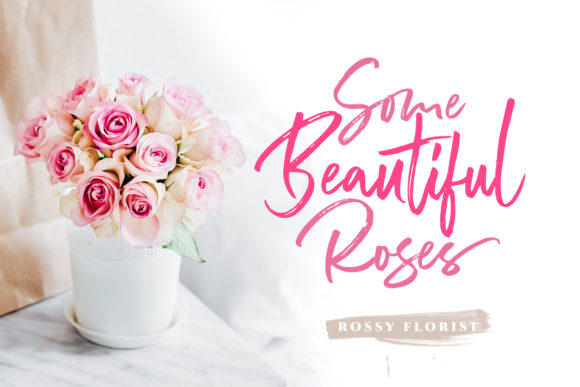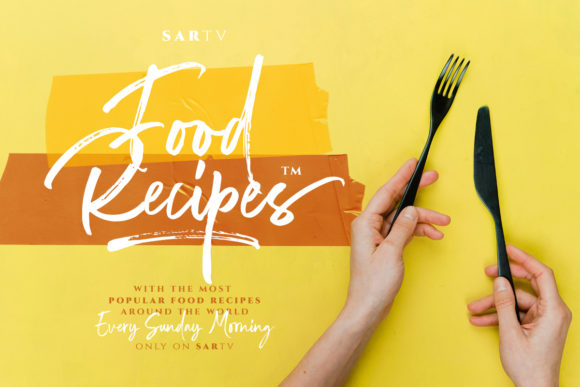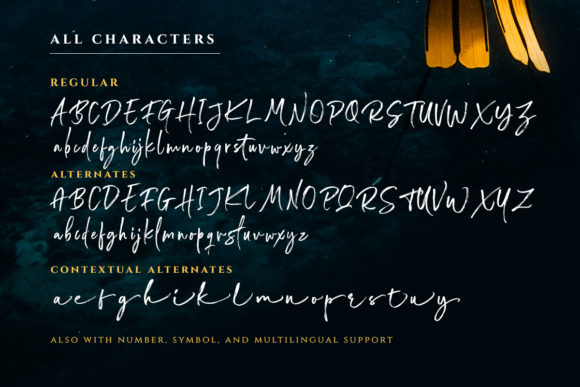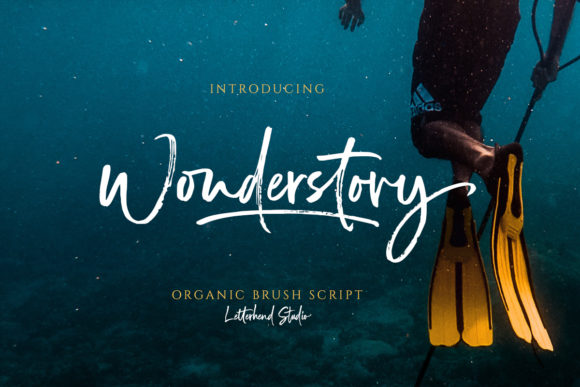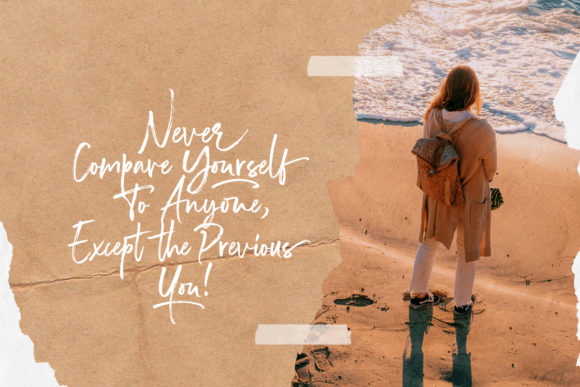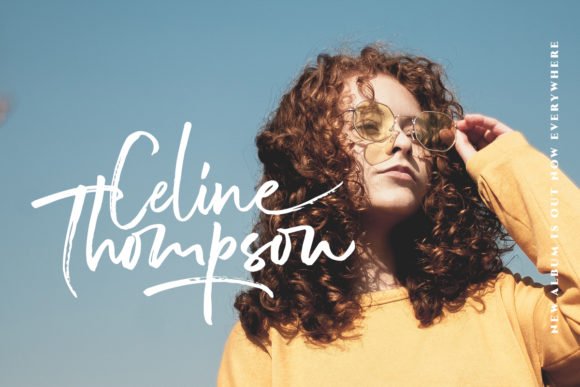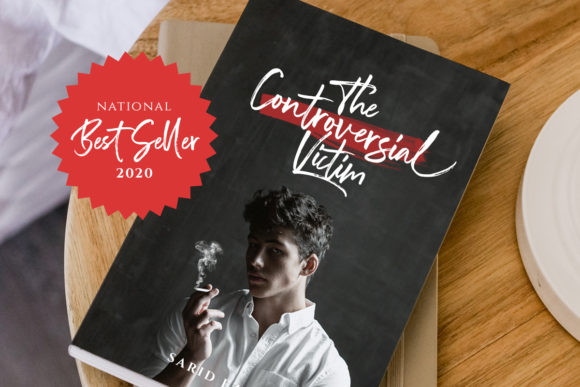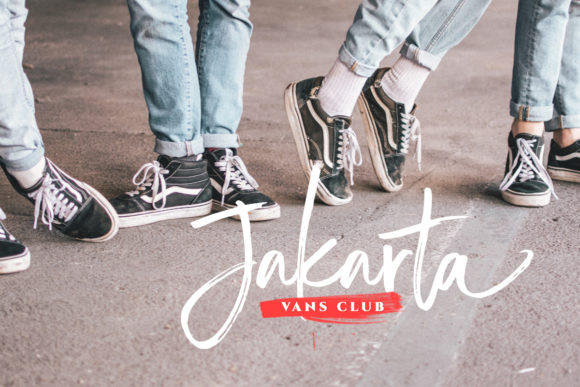
Wonderstory Font
About Wonderstory Font
Wonderstory is a charming script font with a casual style. It is perfectly suited for a wide variety of projects!